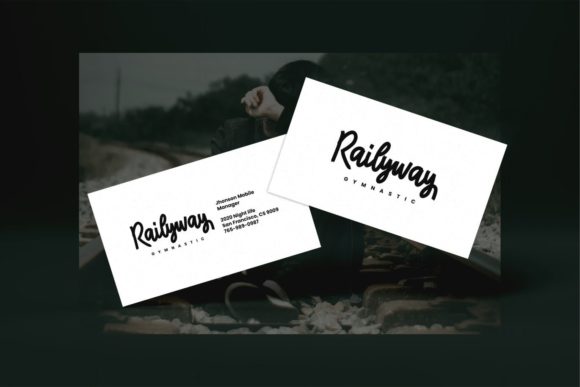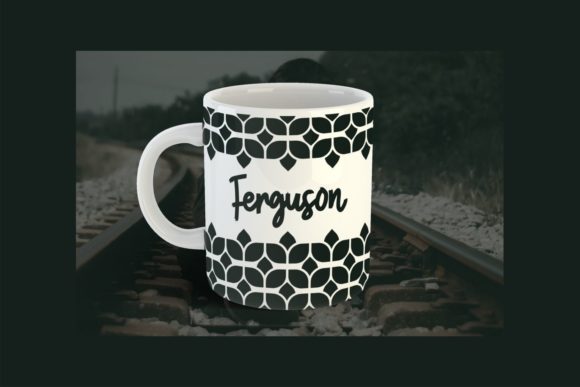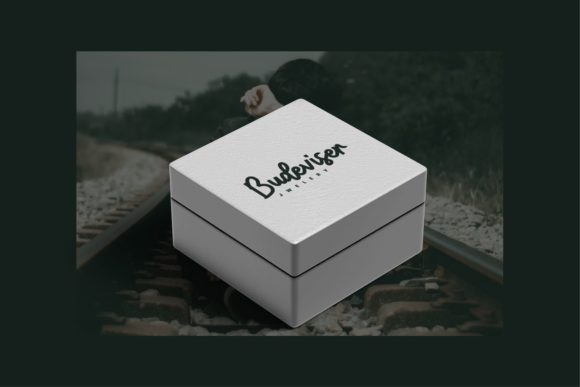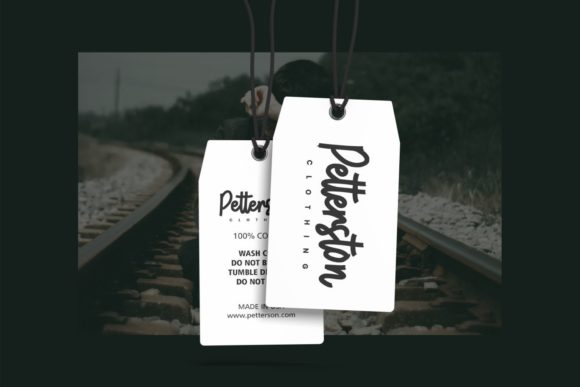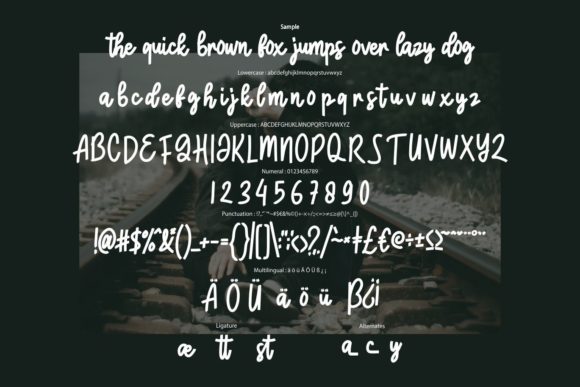
The Perfect Script for Your Next Design Project
Have you ever sat at your desk, surrounded by scraps of paper, paint swatches, and half-finished designs, waiting for that one spark of creativity to strike? For many of us, it’s the moment when everything comes together – the colors, the typography, the overall feel of the design. And for those who’ve experienced it, they know that it’s a feeling like no other.
That’s exactly what the Castonila Font is designed to evoke – a sense of elegance, sophistication, and personalized charm. This stunning script font is perfect for creating customized vibes on wedding invitations, thank you cards, quotes, and more. Whether you’re a seasoned designer or a DIY enthusiast, the Castonila Font is a valuable addition to your toolkit, offering endless possibilities for creativity and self-expression.
Castonila Font Key Features
- Font Family: Castonila Font comes in two font families, Regular and Bold.
- Character Set: It includes a wide range of characters, including Latin, Cyrillic, and Greek alphabets.
- Unique Characteristics: The font features a unique, hand-drawn style with subtle irregularities, giving it a personal and creative feel.
Castonila Font Review
As a designer, I was excited to dive into the Castonila Font, but my experience was a mixed bag. ✨ Here are some things that worked well:
- Unique flair: The font’s quirky, handwritten feel sets it apart from more common fonts.
- Legibility: Despite its cursive nature, the Castonila Font remains relatively easy to read, even at smaller sizes.
- Creativity: The font’s irregularities and variations make it perfect for adding a touch of personality to creative projects.
However, I also encountered some limitations ⚠️:
- Limited versatility: While the Castonila Font excels at adding flair to certain projects, it may not be the best choice for formal or corporate materials.
- Lack of consistency: The font’s irregularities can sometimes make it difficult to achieve a uniform look across different text elements.
- Not ideal for body text: Due to its cursive nature, the Castonila Font may not be the most suitable choice for large blocks of text.
Overall, the Castonila Font is a great addition to any designer’s toolkit, but it’s essential to use it judiciously and consider its limitations when making design decisions.
Tips for Getting the Most Out of Castonila Font
To get the most out of Castonila Font, use it for:
- Quotes and inspirational text
Remember to pair Castonila Font with a clean and simple background to make it stand out.
Alternatives to Castonila Font
Oswald is a sans-serif font that is often used for headings and titles. It is a great alternative to Castonila Font because it has a similar industrial feel, but with a more modern and sleek design. Oswald is a good choice for designers who want a font that is easy to read and can be used in a variety of contexts.
Comparison: Oswald is more modern and sleek than Castonila Font, with a more rounded and friendly feel.
Montserrat is a sans-serif font that is designed to be used in urban environments. It is a great alternative to Castonila Font because it has a similar industrial feel, but with a more geometric and modern design. Montserrat is a good choice for designers who want a font that is easy to read and can be used in a variety of contexts.
Comparison: Montserrat is more geometric and modern than Castonila Font, with a more dramatic and urban feel.
Playfair Display is a serif font that is often used for headings and titles. It is a great alternative to Castonila Font because it has a similar elegant and sophisticated feel, but with a more luxurious and ornate design. Playfair Display is a good choice for designers who want a font that is easy to read and can be used in a variety of contexts.